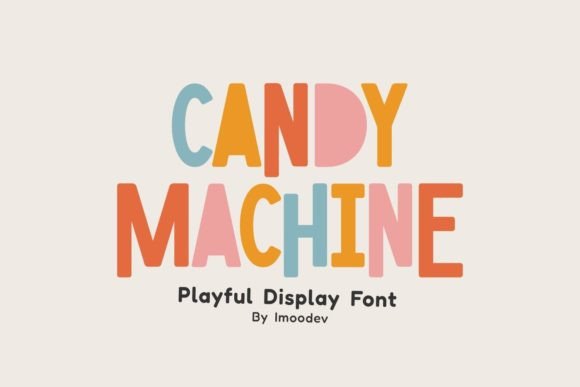
Are you looking for the perfect font to add a touch of playfulness and elegance to your creative projects? Look no further than Candy Machine Font, the best font for photo books! Created by Imoodev, this font is designed with smooth curves, beautiful ligatures, and visual appeal that will make your work stand out.
Candy Machine Font is not just visually stunning, but also incredibly versatile. Whether you're working with large or small sizes, this font adapts seamlessly to any project. From logos and invitations to branding and magazine layouts, Candy Machine Font is the ideal choice. It even works wonders for photography projects, product packaging, and creating stunning product mockups.
But that's not all! With Candy Machine Font, the possibilities are endless. Its unique style and wide range of applications make it perfect for mugs, quotes, posters, labels, signatures, editorials, websites, and even social media graphics. Whatever your project may be, this font adds a touch of charm and sophistication.
Not only is Candy Machine Font suitable for personal projects, but it also caters to businesses of all sectors. Whether you're a small studio, a corporate entity, a creative agency, or an industrial company, this font is the perfect fit. Its versatility knows no bounds.
One of the standout features of Candy Machine Font is its PUA encoding. What does that mean for you? It means easy access to all the glyphs and swashes that this font offers. Let your creativity flow and customize your designs effortlessly with the variety of options available.
In conclusion, Candy Machine Font is a must-have for anyone looking to make a statement with their designs. Its playful yet elegant style, combined with its versatility and wide range of applications, make it the perfect choice for any project. So why wait? Download Candy Machine Font today and let your creativity soar!